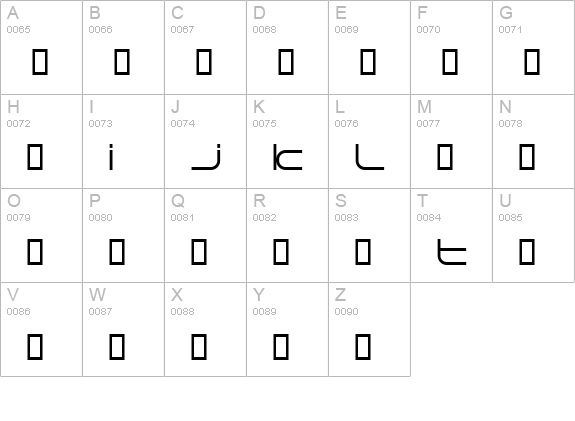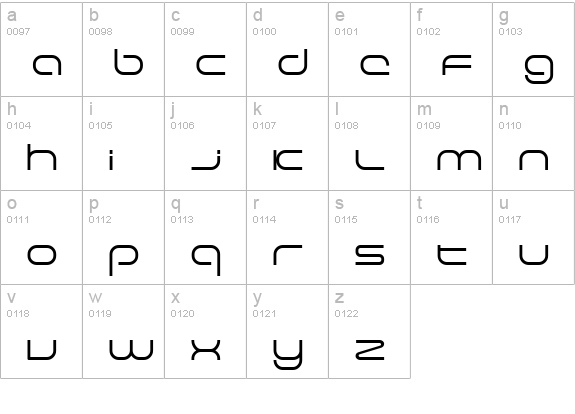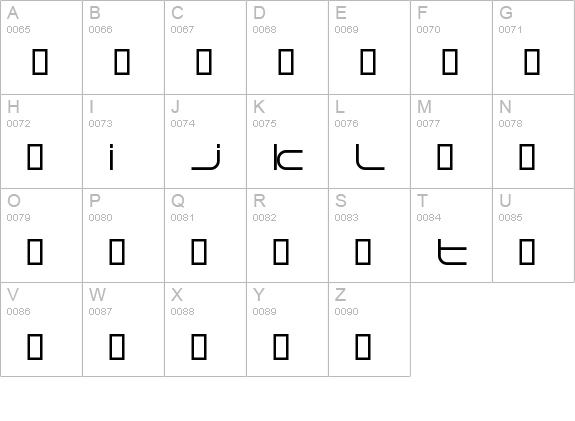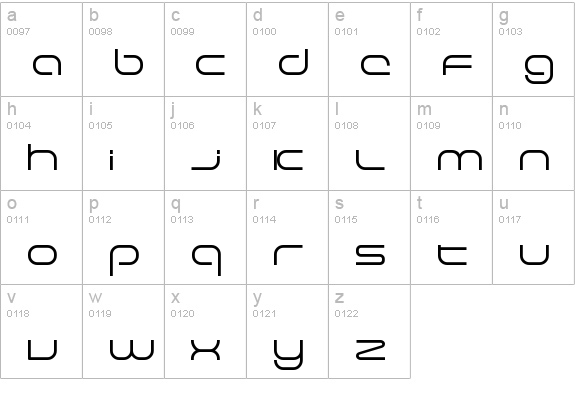
Excellence LightExtended Font Details
Excellence LightExtended is a modern and stylish font that exudes elegance and sophistication. With its sleek lines and contemporary design, this font is perfect for adding a touch of class to any project. The clean and minimalist look of Excellence LightExtended makes it versatile and suitable for a wide range of uses, from branding to editorial design. This font is not only visually appealing but also highly readable, making it a practical choice for both print and digital applications. Its extended weight adds a unique twist to the traditional light font style, making it stand out from the crowd. Best of all, Excellence LightExtended is available for free download at FontsMarket.com. Whether you're a professional designer or a hobbyist looking to elevate your projects, this font is a valuable addition to your toolkit. Download Excellence LightExtended today and discover the endless possibilities it offers for your creative endeavors.